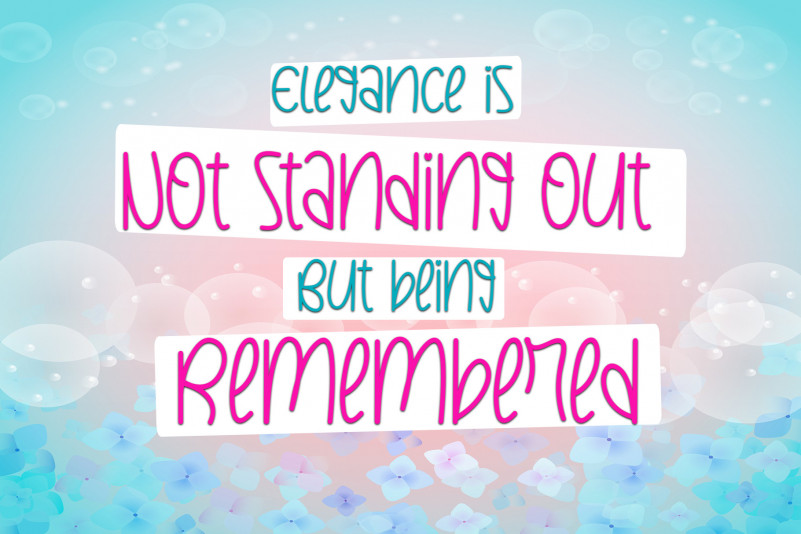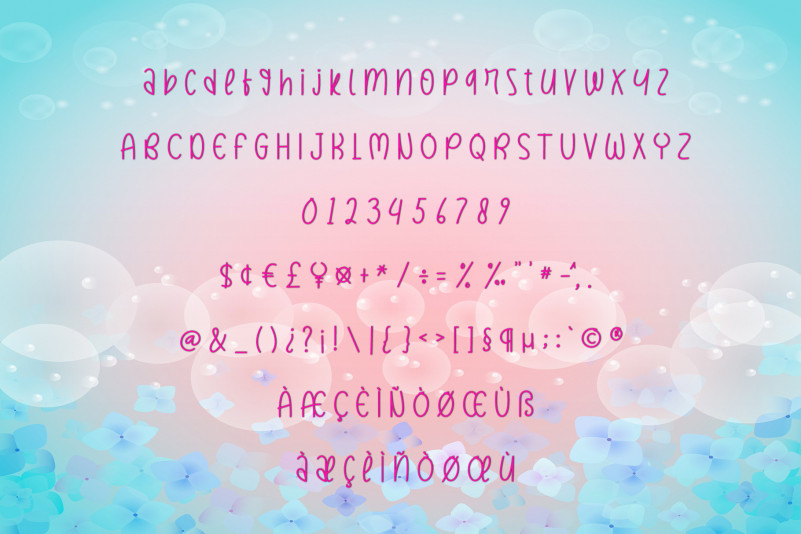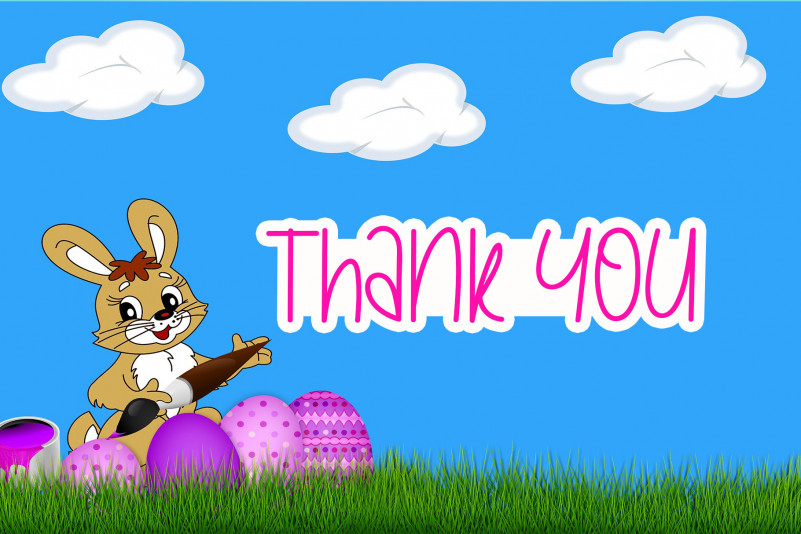
Rainbow Butterfly Font
Rainbow Butterfly Display Font
This is a friendly and jolly display font. Embodying authenticity and fun, this font is perfect for children-themed designs, especially when combined with bright colors!